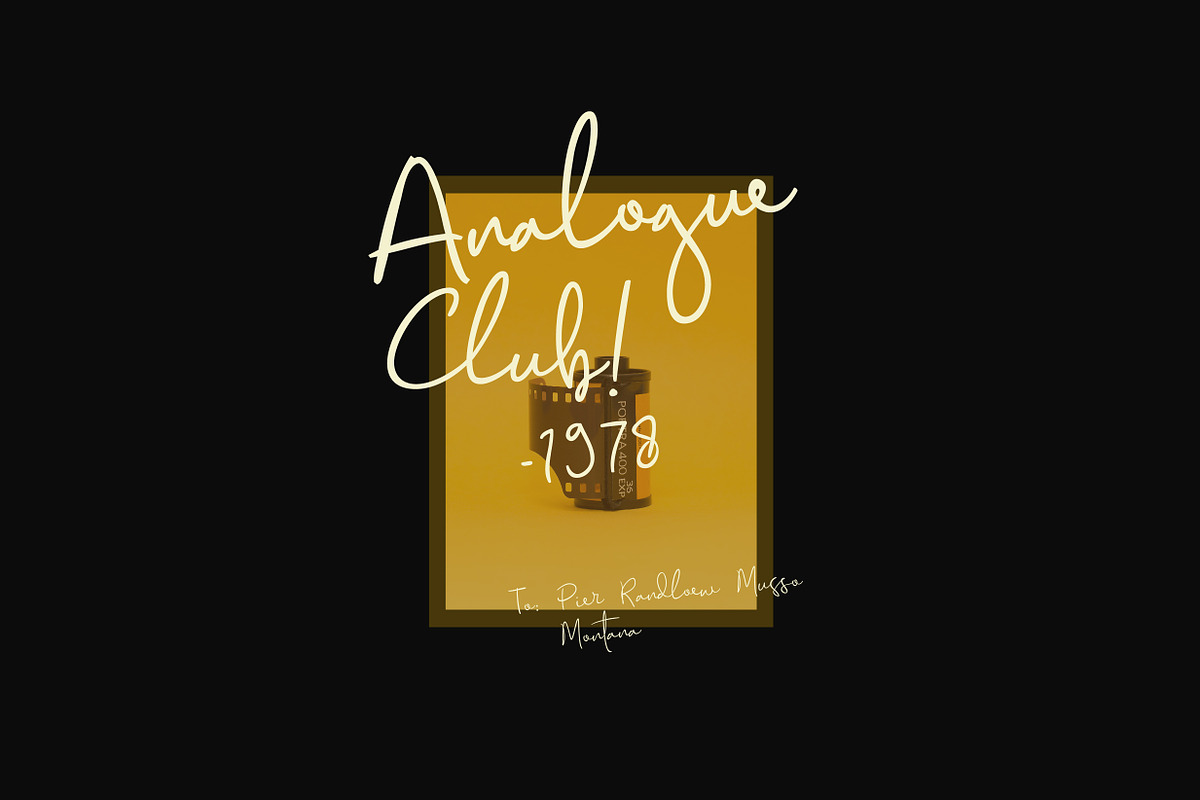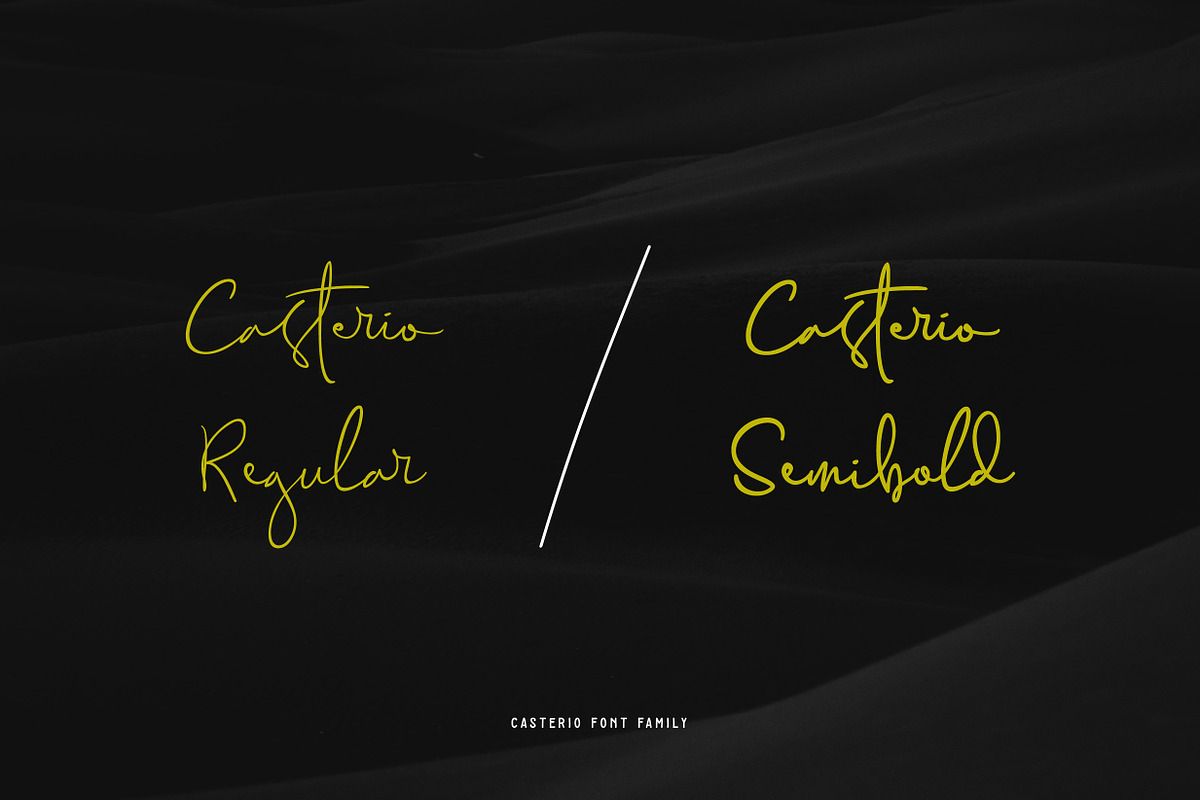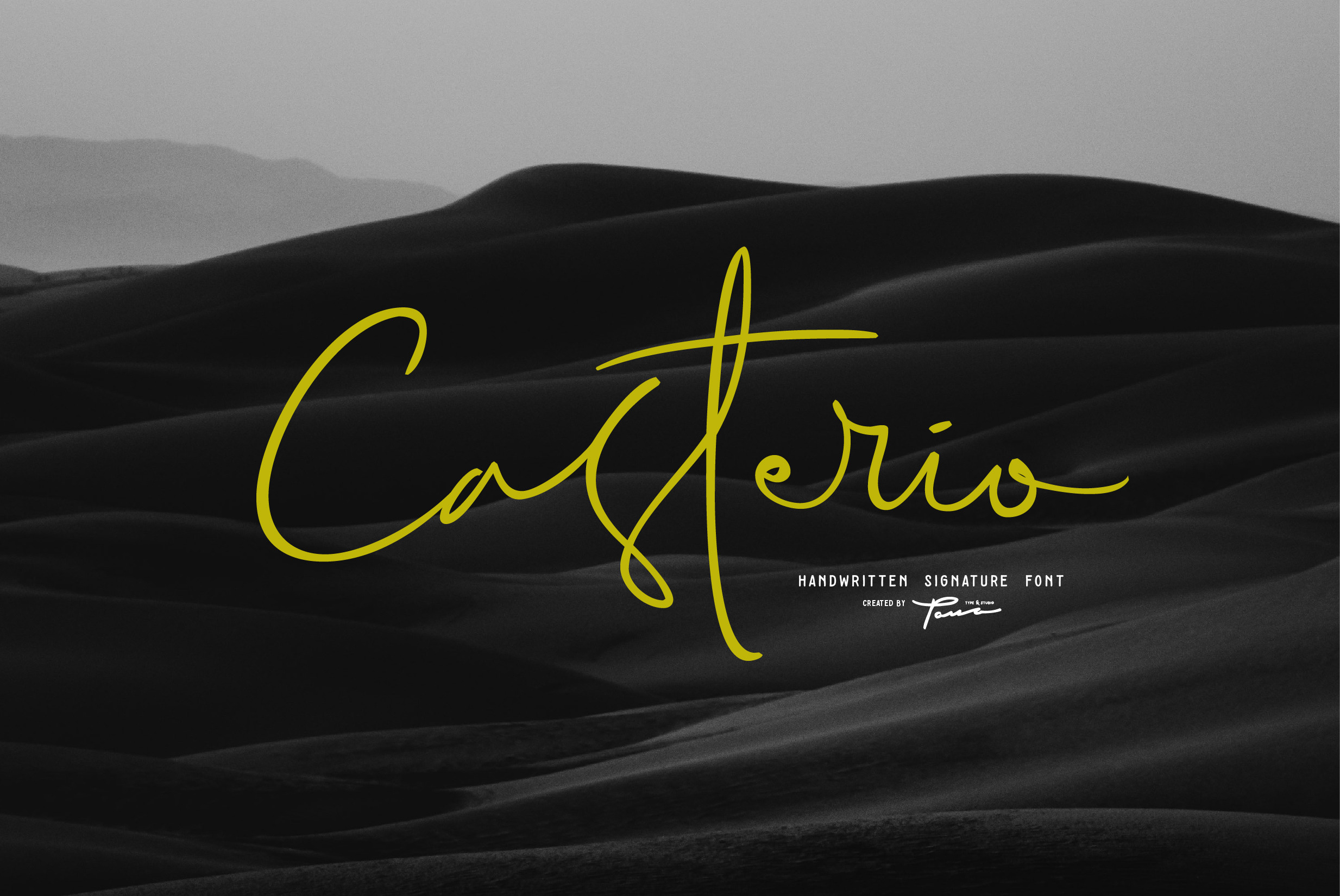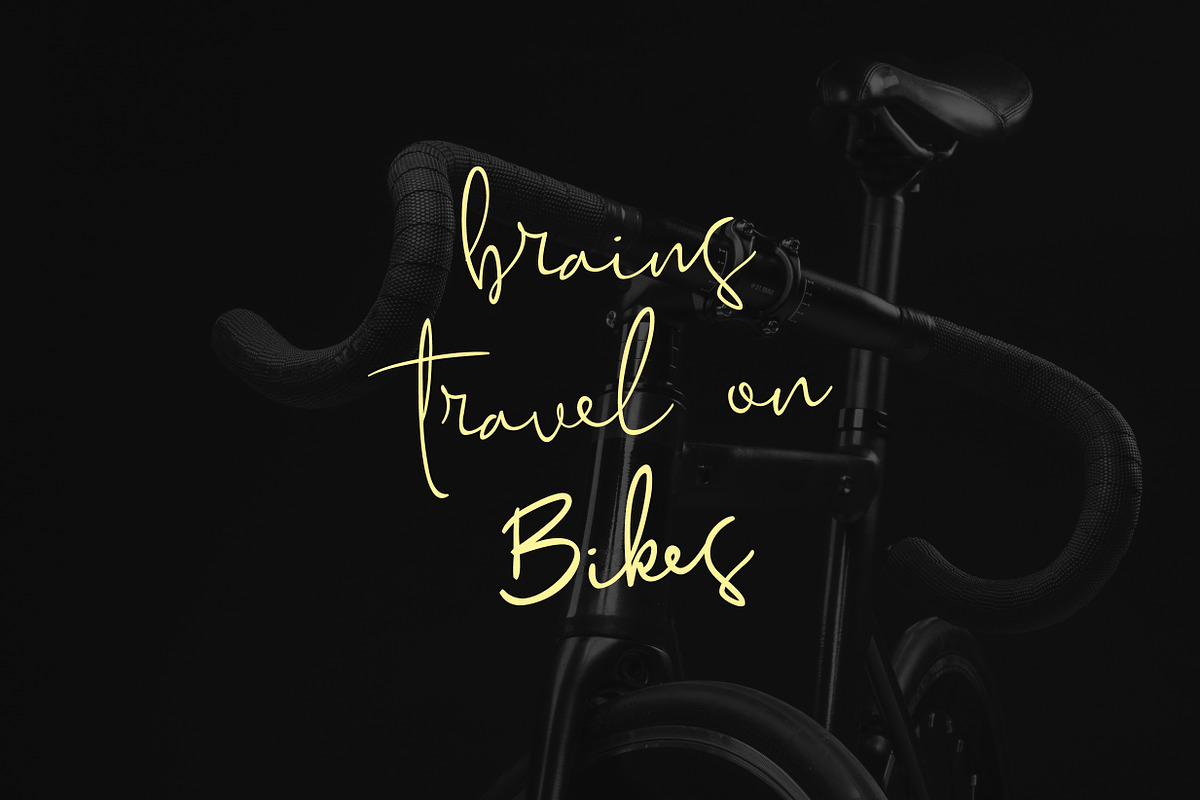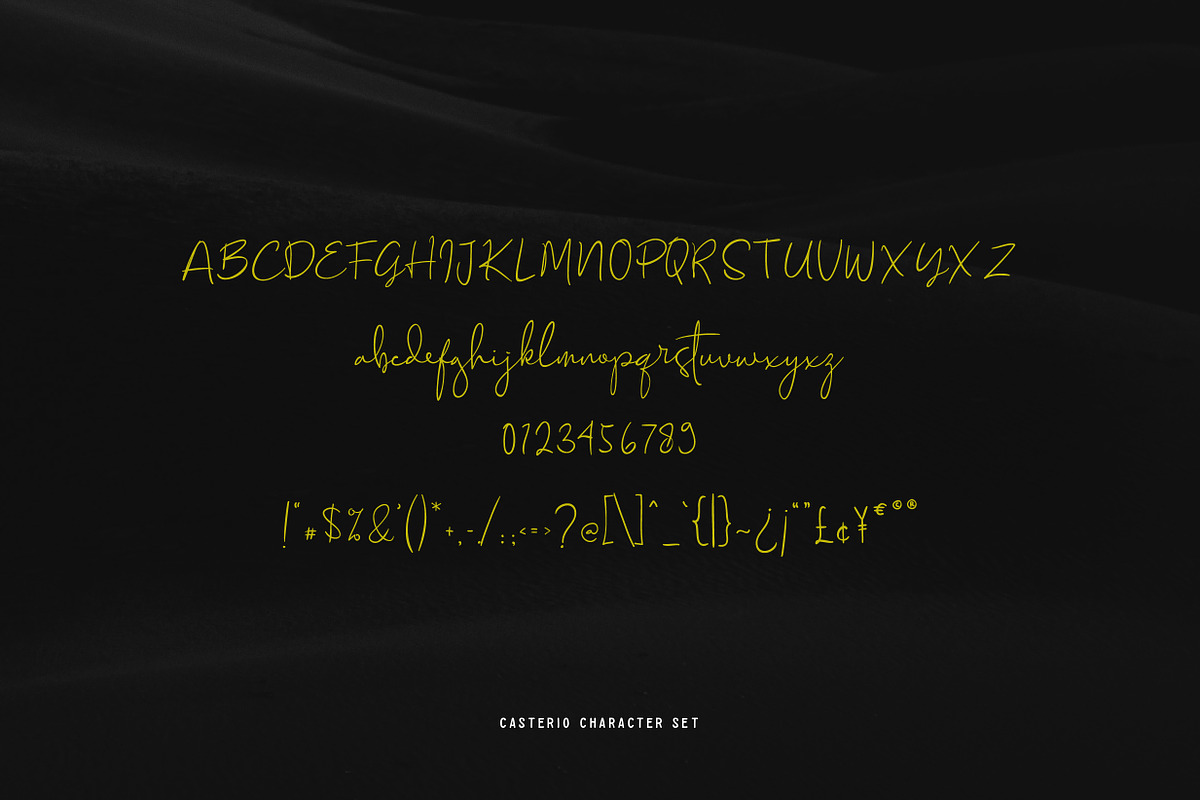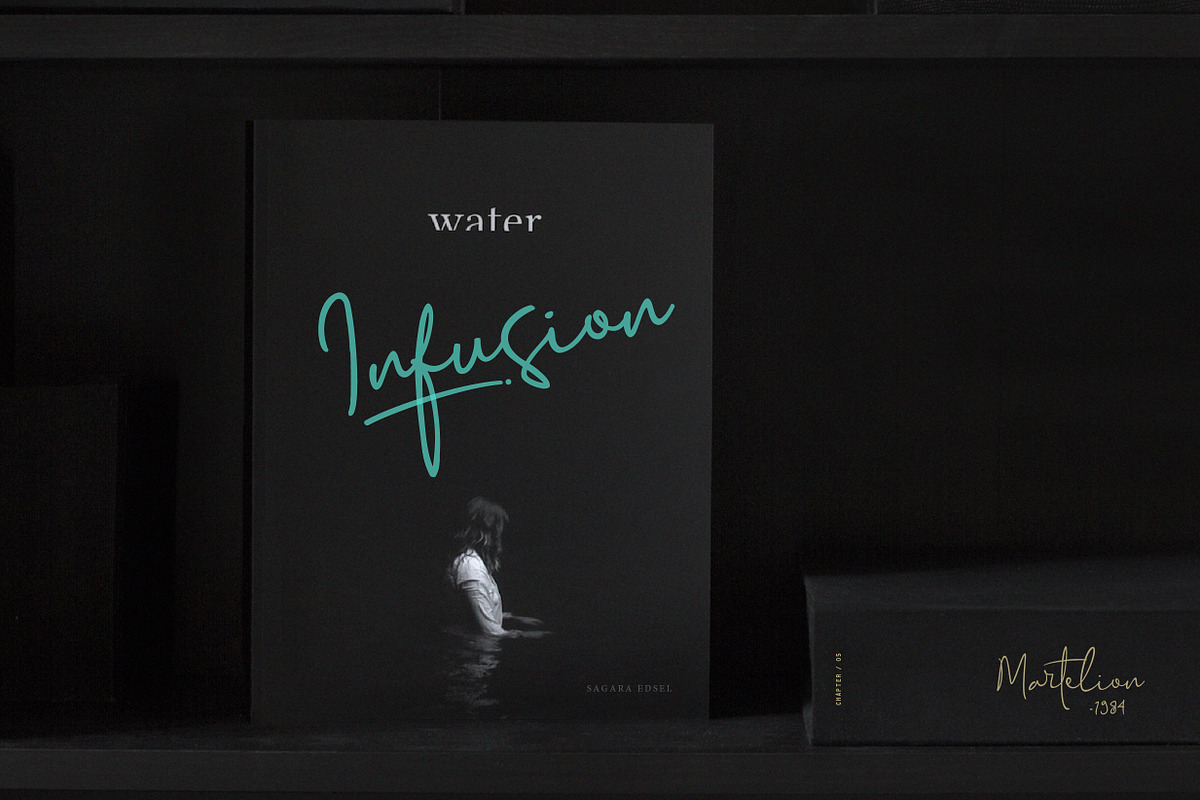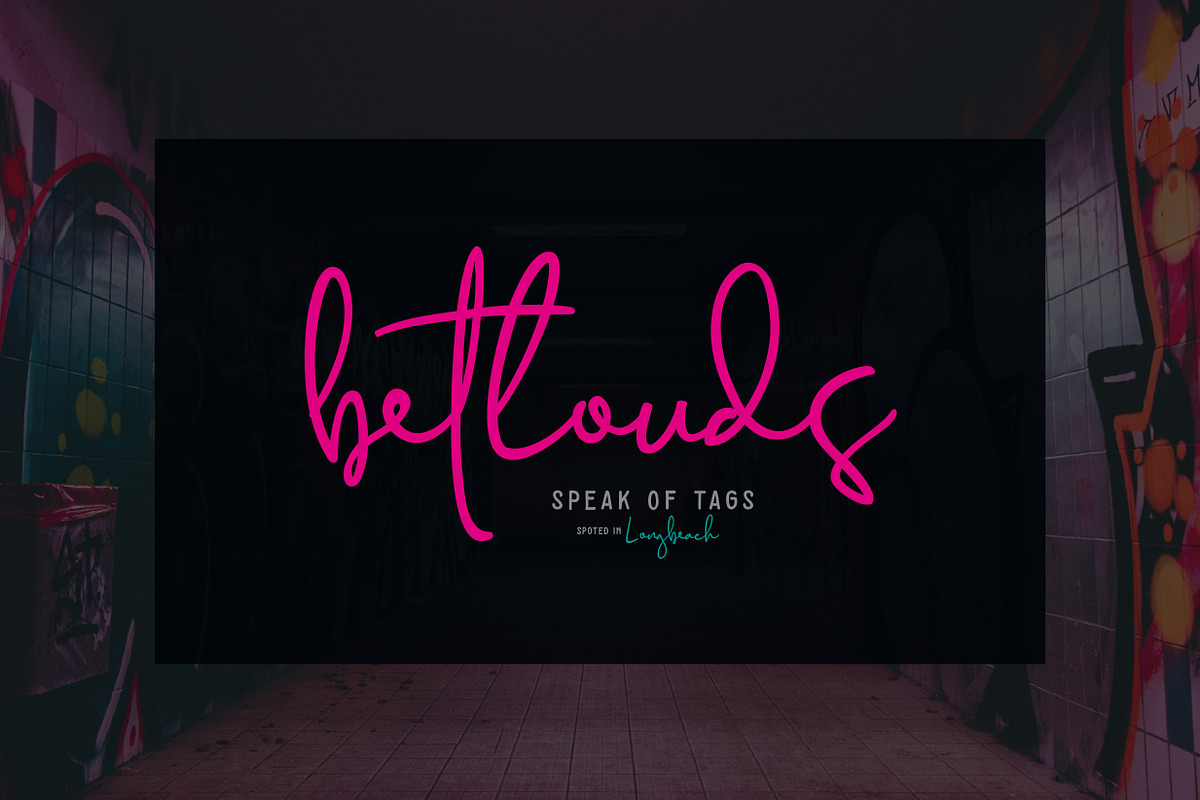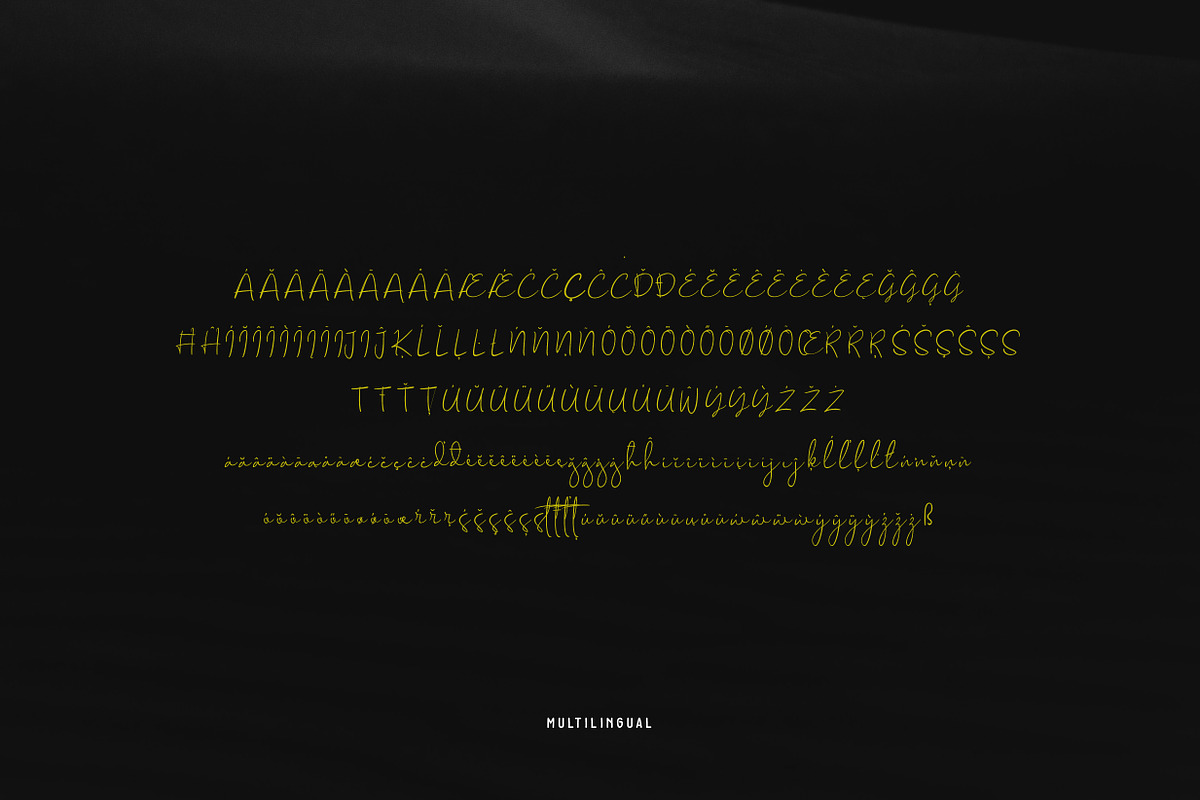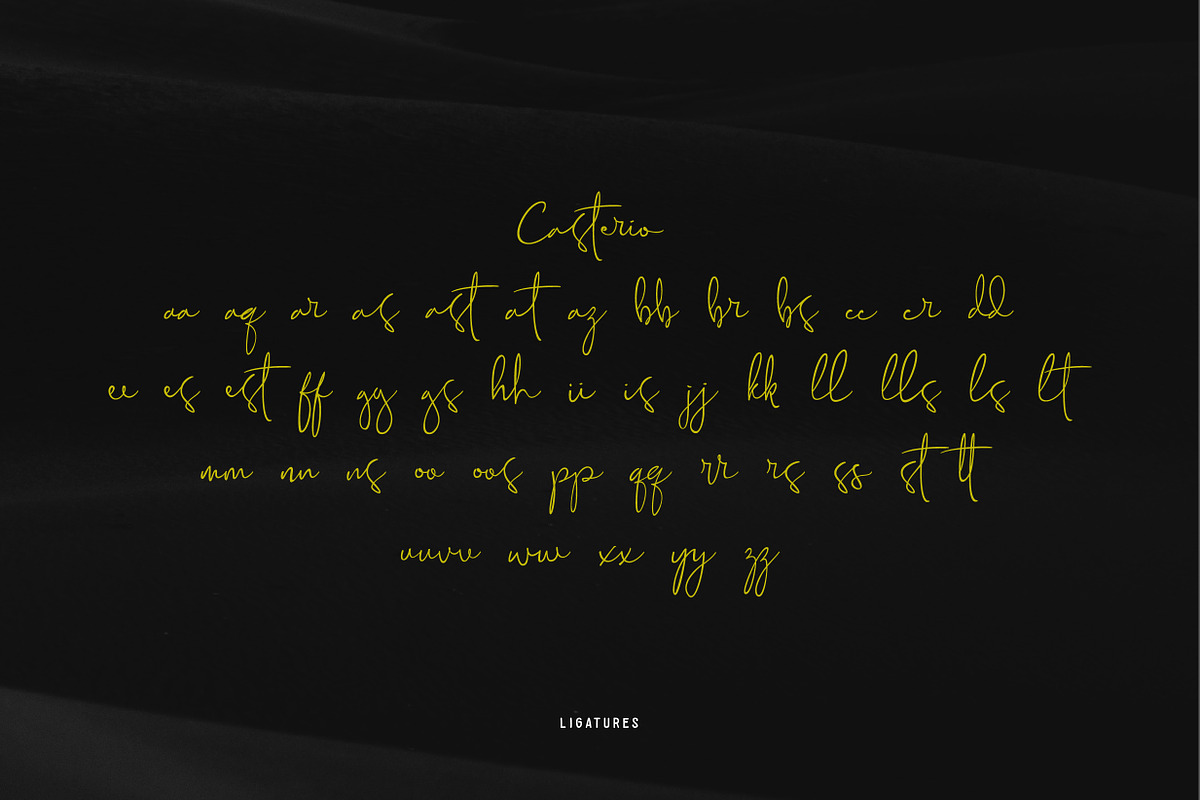
Casterio-Signature font
The Casterio Signature Font embodies the art of refined simplicity. With its thoughtfully crafted script, this font adds a personal touch to an array of creative projects. Whether for branding, magazine layouts, promotional headers, or matrimonious embellishments, Casterio Signature Font whispers elegance and subtlety.
Features Includes Ligatures – Featuring 46 unique ligatures for seamless double-letter aesthetics. Versatile Use – Ideal for logos, advertising products, quotes, posters, and more.
Language Support Basic Latin to Pan African Latin Western and Central European languages Scandinavian languages and dialects